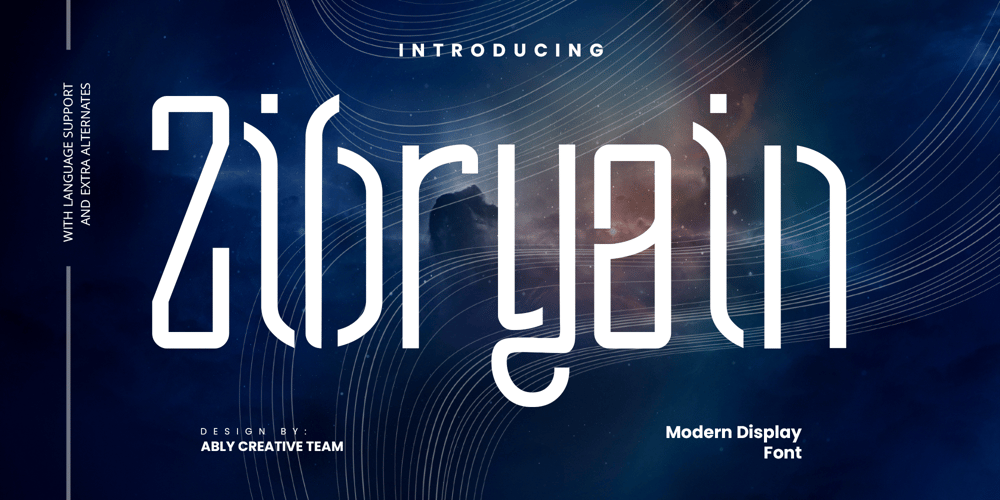
Zibryain Font Family was designed by Amrullah Medan, Amrullah, Dedi Purwanto and published by Ably Creative. Zibryain contains 6 styles and family package options. Zibryain is a unique display font. Modern style created as a result of my experiments on letterforms, on the one hand I like the appearance of the individual curved lines, on the other hand they seem very strange, foreign and illogical. It was like looking into a microscope and seeing something strange. I wanted to develop and study these forms as something new, because I had never seen anything similar before. The result is a contrasting font that has sharp, smooth curves and lines. The Zibryain font is perfect for designing company logos, online game logos, magazine covers, biographies, business cards and all your design work of course. become more attractive in appearance.